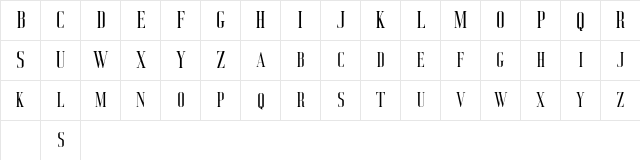
Deluce Free Regular Font Preview
Deluce Free Regular
Deluce Free Regular Font Details
Design Context for Deluce Free Typeface
Deluce Free is a composed and adaptable typeface that performs quietly and consistently across a wide range of design contexts.